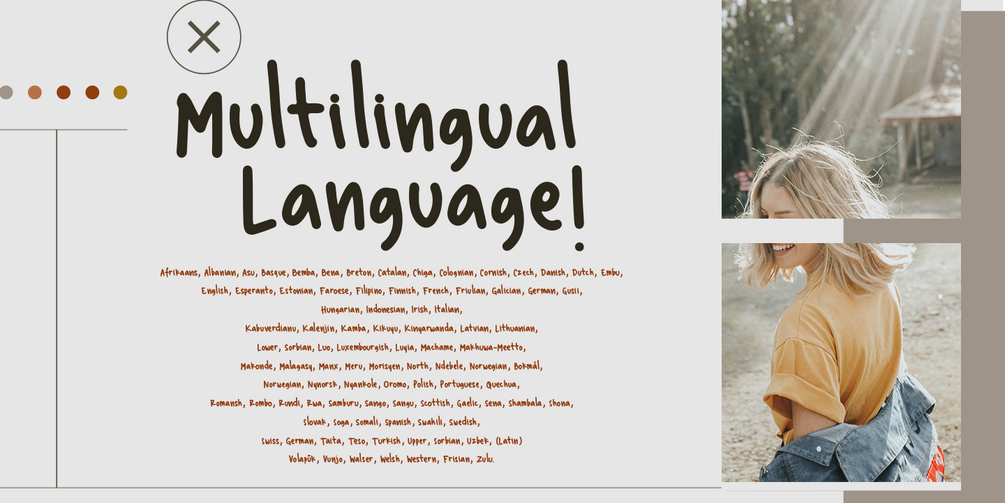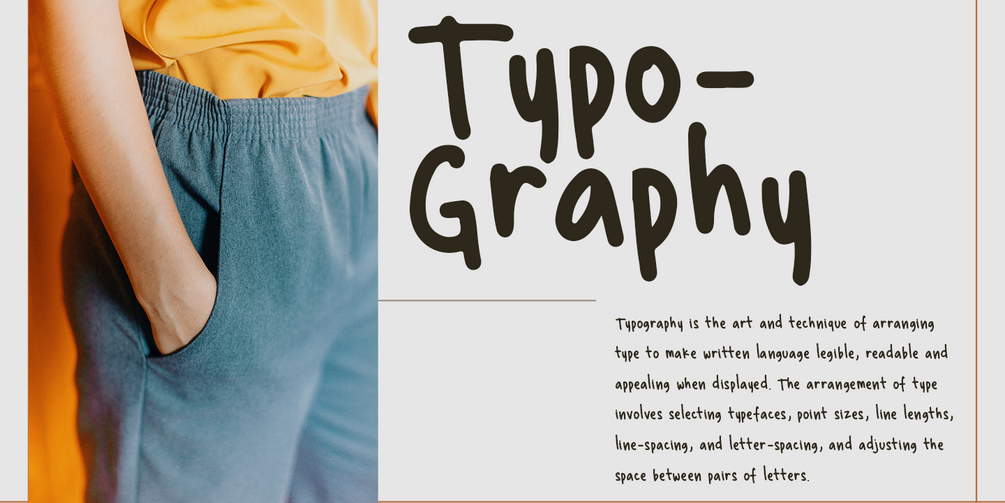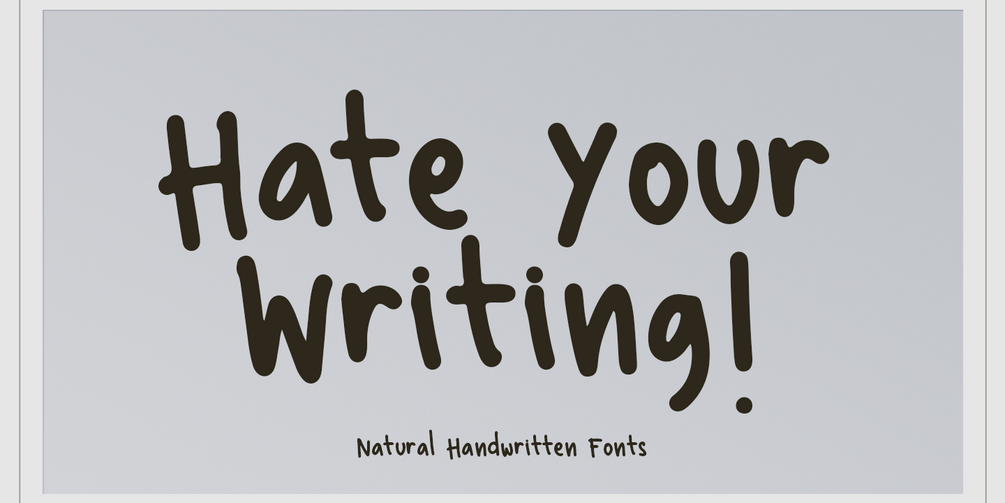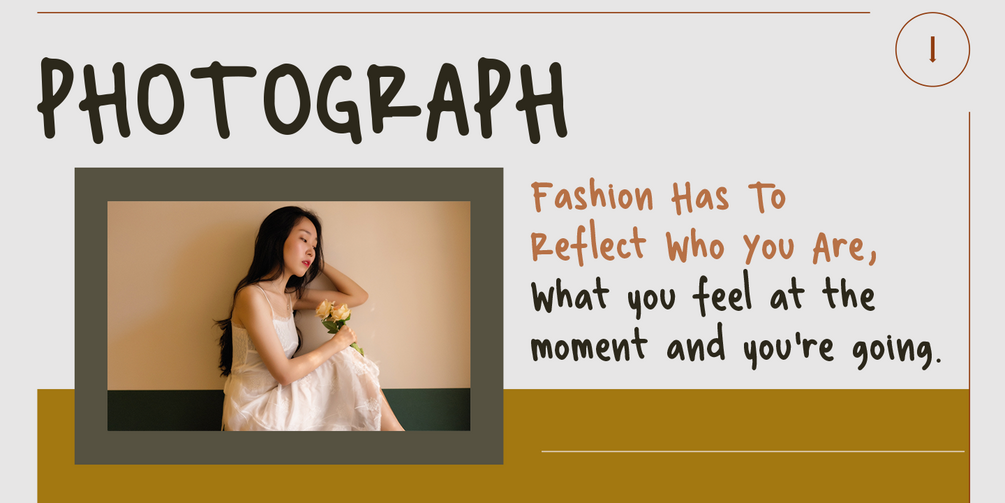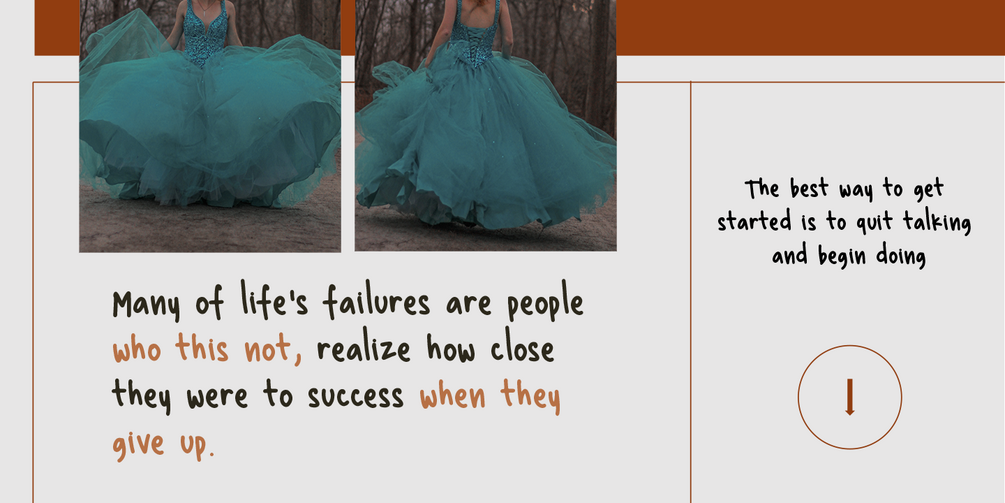
Hate Your Writing - Natural Handwritten fonts
Introducing the new font "Hate Your Writing".
This font written by my daughter.
Easy to read. Make your design looks stuning.